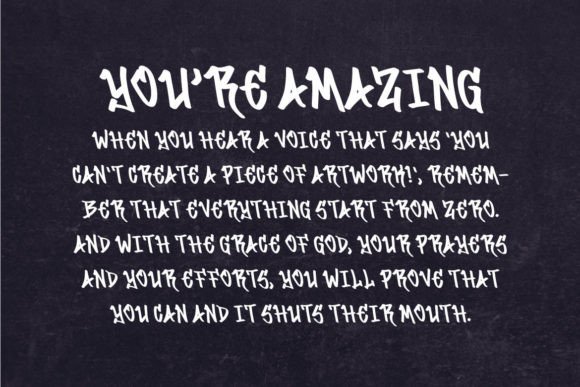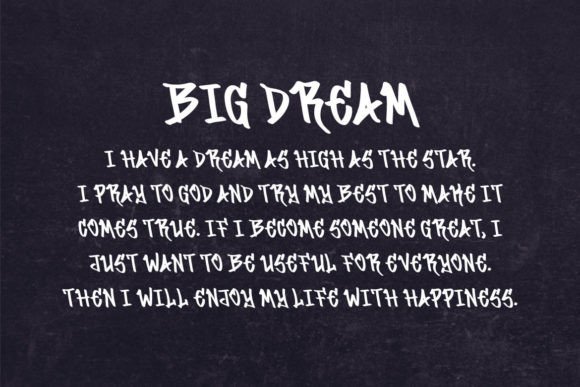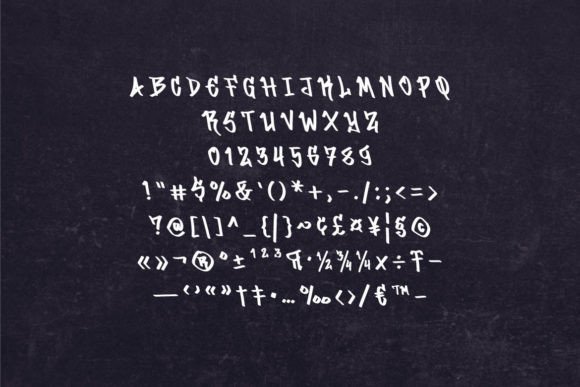
Introduction to Rocky Way Font
As a designer, there’s nothing quite like the thrill of landing on the perfect font for your next creative project. The moment you stumble upon that one font that perfectly captures the essence of your idea is pure magic. And for those seeking a truly unique design resource, look no further than the Rocky Way Font.
This high-quality display font boasts an eye-catching design that’s sure to turn heads. With its distinctive style, it’s the perfect choice for headlines, logos, and advertising. And the best part? The Rocky Way Font is available for free download, making it an invaluable resource for designers on a budget.
Whether you’re working on a commercial project or a personal passion project, the Rocky Way Font is sure to add a touch of personality to your text. Its transparent background and clean design make it a versatile choice for any creative endeavor.
Key Features of Rocky Way Font
- High-quality design: The Rocky Way Font offers a unique and stylish design perfect for creative projects.
- Transparent background: This font features a transparent background, making it easy to use in various design contexts.
- Large character set: The font includes a large character set, including uppercase and lowercase letters, numbers, and punctuation marks.
- Unique typography: The Rocky Way Font features a distinctive and eye-catching typography that can add a creative touch to any design project.
Honest Review: Rocky Way Font
As a designer, I’m always on the lookout for high-quality fonts to elevate my creative projects. Recently, I had the chance to work with the Rocky Way Font, and I must say it’s a solid addition to my design resource library.
One thing that stands out about the Rocky Way Font is its versatility. It’s perfect for a wide range of creative projects, from posters to logos, and even digital displays. The font’s unique blend of modern and rustic elements makes it a great choice for designers who want to add a touch of personality to their work.
Here are some of the things I love about the Rocky Way Font: ✨
- High-quality design with crisp lines and a clear, readable font face
- Transparent background, making it easy to overlay on images and videos
- Some users may find the font’s unique style to be too bold or overpowering
- Limited customization options, which may not be ideal for designers who like to fine-tune their fonts
Overall, I’m impressed with the Rocky Way Font and would recommend it to designers who are looking for a high-quality, versatile font for their creative projects.
How to Use Rocky Way Font
Customizing the Font
To get the most out of the Rocky Way Font, try experimenting with different font sizes, colors, and combinations with other design elements. You can also use the font on a transparent background to create a unique and eye-catching design. Consider using the font in combination with other design resources, such as graphics and images, to add depth and interest to your project.
The Rocky Way Font is suitable for a wide range of creative projects, including logos, brochures, and social media graphics. It’s also a great choice for titles and headings, as its bold and playful style is sure to grab attention. With its high-quality design and transparent background, the Rocky Way Font is a versatile and useful design resource that can help you take your project to the next level.